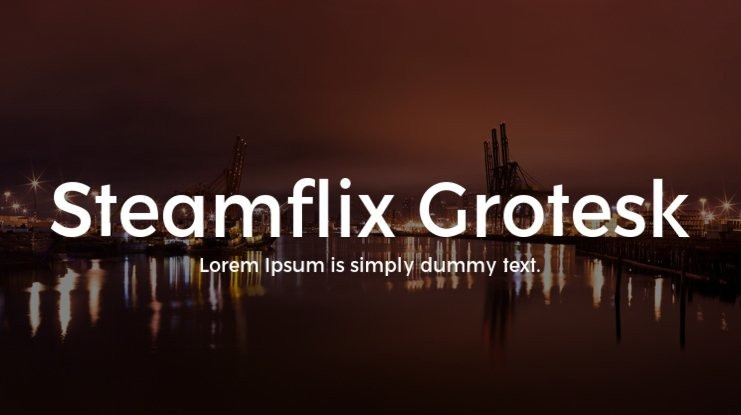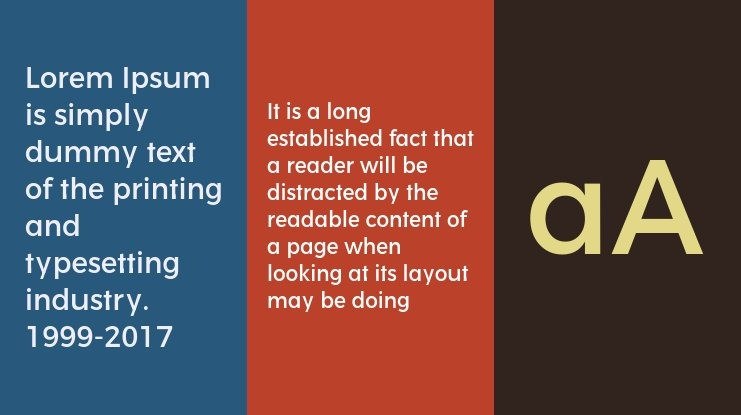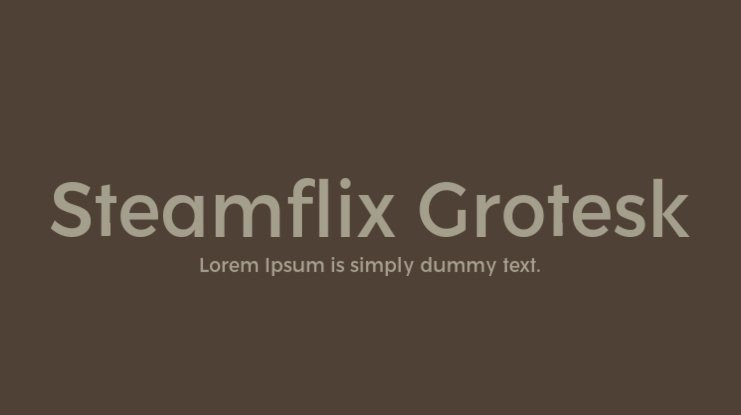
Steamflix Grotesk Sans Serif Font, This font was created for all forms of business and branding such as clothing, logos, skate boards and others according to your needs.